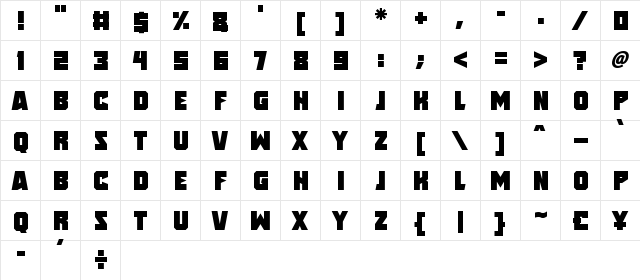
Speed Freaks Regular Font Preview
Speed Freaks Regular
Speed Freaks Regular Font Details
Design Context for Speed Freaks Typeface
Speed Freaks is a composed and adaptable typeface that performs quietly and consistently across a wide range of design contexts.